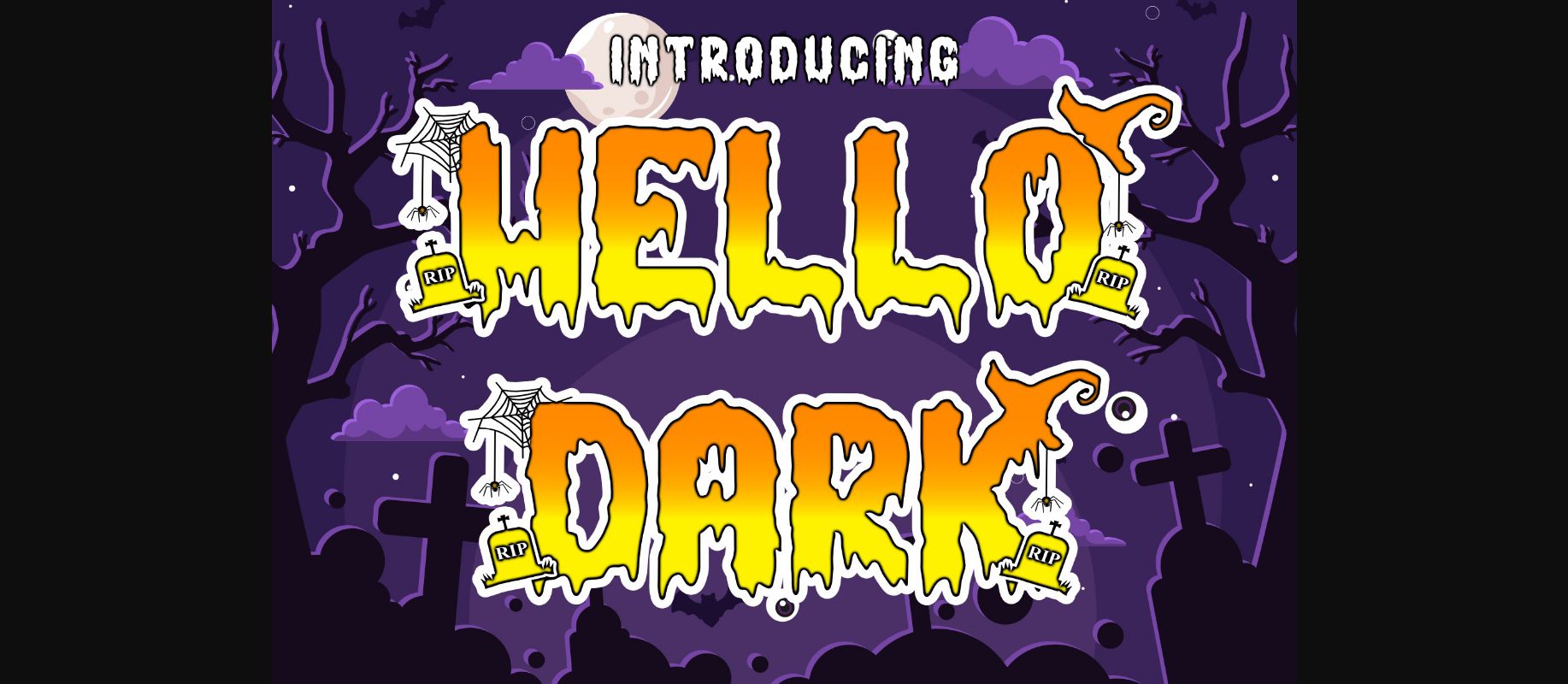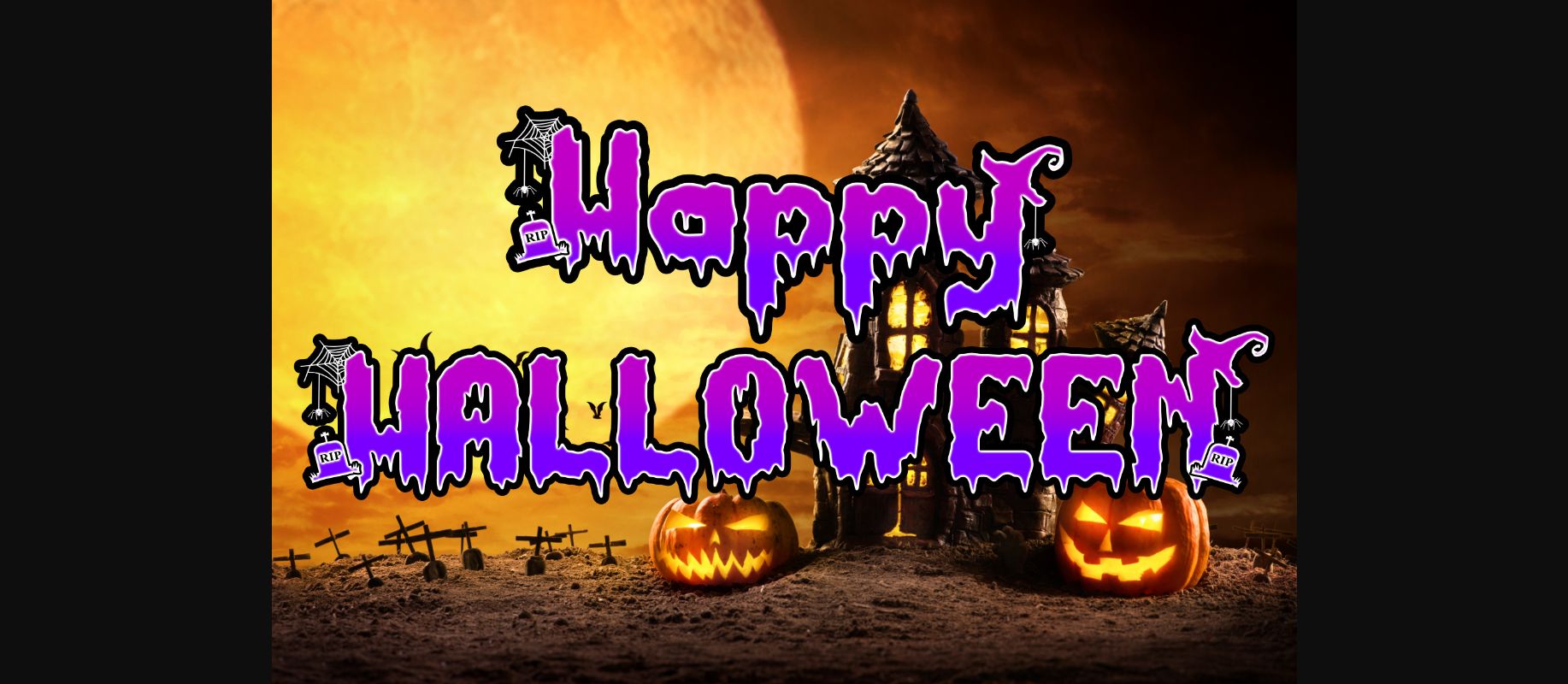
About Hello Dark Font
Hello Dark is a thick-lettered and spooky decorative font. It is perfectly suitable for any Halloween-related project or crafty idea! The only limit is your imagination. Hello Dark is PUA encoded which means you can access all of the amazing glyphs and ligatures with ease!